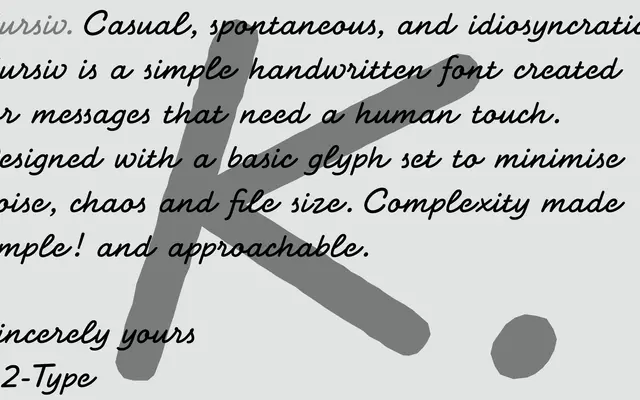
Kursiv
A stripped-back handwritten script from A2-Type, offering a single weight with a basic glyph set and deliberately restrained design.
Kursiv offers a single Regular weight with no stylistic variation, designed to read as a plain, unaffected handwriting style. The foundry explicitly notes its minimalism and small file size, positioning it as a utilitarian choice rather than an expressive one. Those seeking more character are directed to A2-Type's Signature typeface instead.
Kursiv is a casual handwritten script, described by the foundry as a simple, pared-back handwriting font with a minimal design aesthetic.